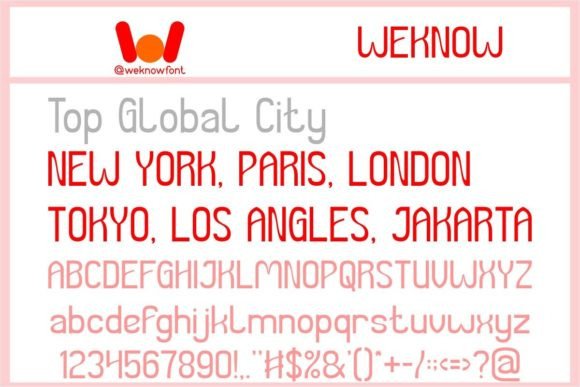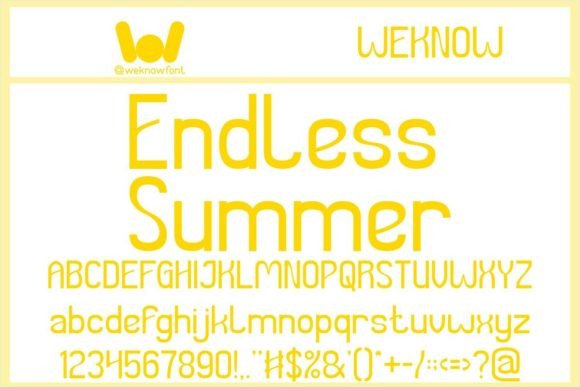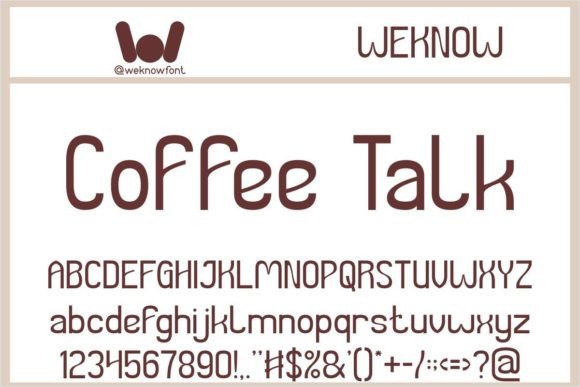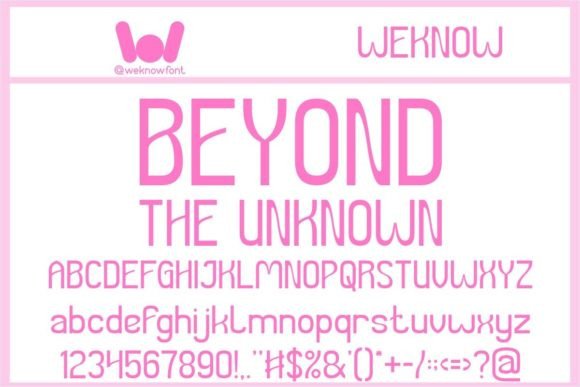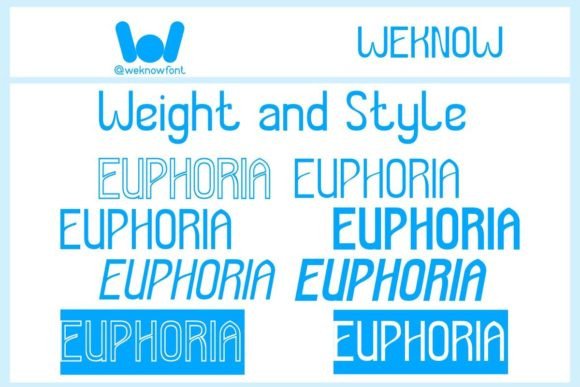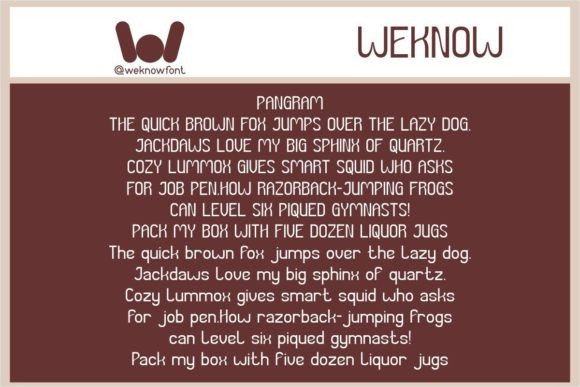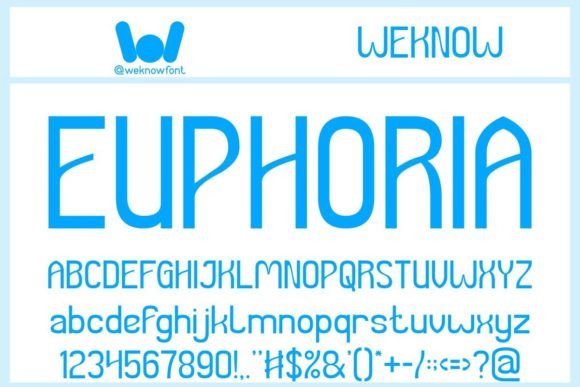
Euphoria Font: Elevate Your Designs with Elegance and Sophistication
Are you on the hunt for a font that embodies both simplicity and sophistication? Look no further than Euphoria, a versatile sans-serif font that’s taking the design world by storm. This elegantly cool display font is perfect for crafting captivating logos, standout headlines, and a wide range of creative projects that demand a unique and memorable presence.
The Allure of Euphoria
Euphoria’s distinct charisma is what sets it apart from other fonts. Its clean lines, subtle curves, and precision-crafted details make it an ideal choice for designers and crafters seeking to elevate their brand’s identity. Whether you’re working on a fashion label, poster, music album, or film project, Euphoria’s upscale touch is sure to leave a lasting impression.
Endless Possibilities with Euphoria
The versatility of Euphoria knows no bounds. This incredible font can be used across various industries and mediums, including:
- Fashion labels: Add a touch of sophistication to your fashion brand with Euphoria’s elegant and refined aesthetic.
- Posters and flyers: Create eye-catching promotional materials that grab attention and leave a lasting impression.
- Music albums and films: Use Euphoria to add a professional and polished touch to your music or film project’s branding.
- Gaming: Elevate your game’s visual identity with Euphoria’s modern and sleek design.
- Magazines, books, and comic designs: Bring a touch of elegance to your publications with Euphoria’s sophisticated font style.
- YouTube, Instagram, and website designs: Use Euphoria to create stunning visual content that stands out on social media and websites.
Why Choose Euphoria?
So, what makes Euphoria the perfect font for your design needs? Here are just a few reasons why designers and crafters are falling in love with this incredible font:
- Unique and memorable: Euphoria’s distinct charisma ensures that your brand or design stands out from the crowd.
- Versatile: Use Euphoria across various industries and mediums, from fashion to gaming and beyond.
- Elegant and sophisticated: Add a touch of refinement and polish to your designs with Euphoria’s upscale aesthetic.
- Easy to read: Euphoria’s clean lines and precise details make it easy to read, even at smaller font sizes.
Embracing Euphoria for Your Creative Ventures
Euphoria is more than just a font – it’s a seamless blend of artistry that can elevate your creative ventures to new heights. Whether you’re a designer, crafter, or entrepreneur, Euphoria offers a world of possibilities for:
- Branding: Use Euphoria to create a unique and memorable brand identity that resonates with your audience.
- Marketing materials: Add a touch of sophistication to your marketing materials, from brochures to business cards.
- Digital content: Use Euphoria to create stunning visual content for social media, websites, and blogs.
In conclusion, Euphoria is a game-changing font that’s perfect for designers, crafters, and entrepreneurs seeking to elevate their brand’s identity and create stunning visual content. With its unique charisma, versatility, and elegant aesthetic, Euphoria is sure to become your go-to font for all your creative ventures.